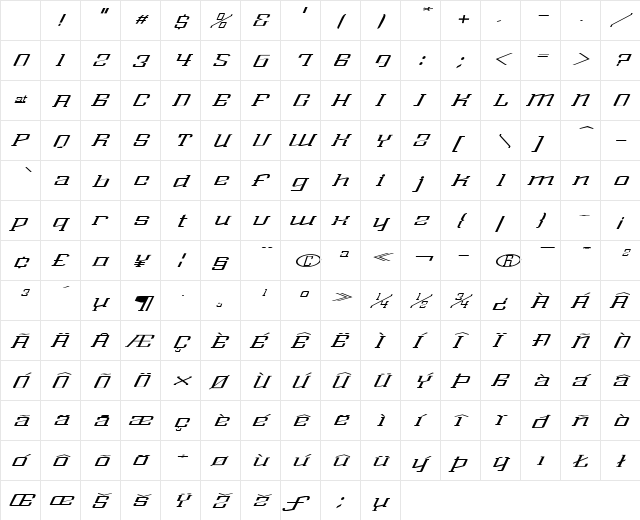
Complete Alexander Light Italic glyph index. Displaying only characters natively supported by Alexander Light Italic font.
Alexander is a composed and adaptable typeface that performs quietly and consistently across a wide range of design contexts. The slanted form adds forward momentum and visual energy. Its slender proportions lend an understated elegance to any composition.
Pro Tip: Use Alexander for emphasis, pull quotes, and subheadings where its slanted energy can add rhythm to the layout.